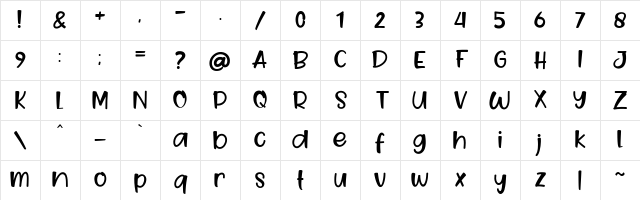
Goo Easter Regular
Foundry: Khurasan
Designer: Khurasan
Design Context for Goo Easter
Goo Easter is a composed and adaptable typeface that performs quietly and consistently across a wide range of design contexts.